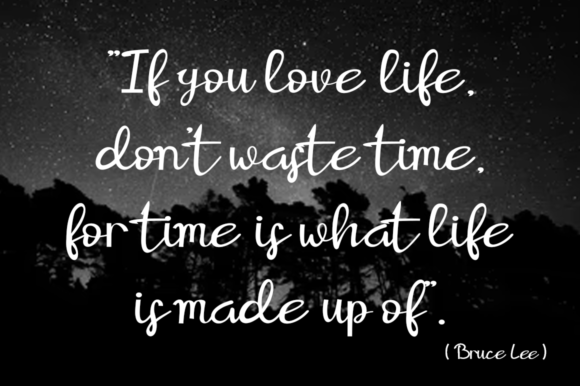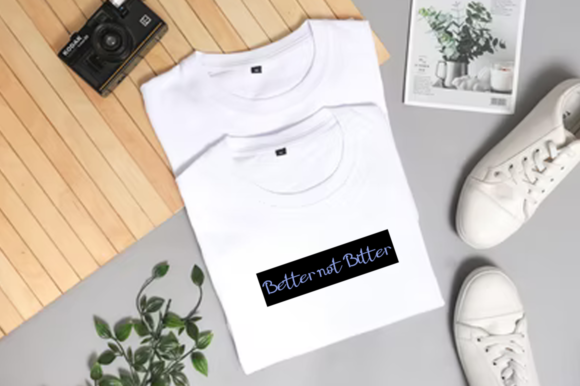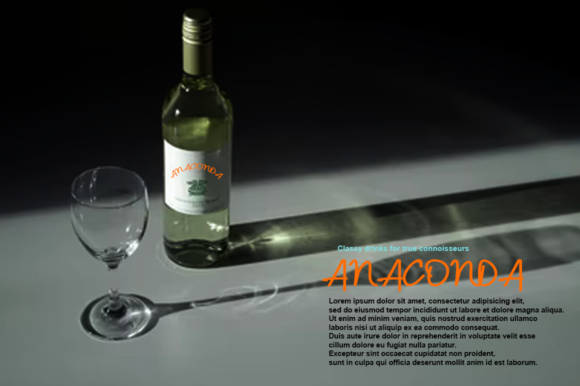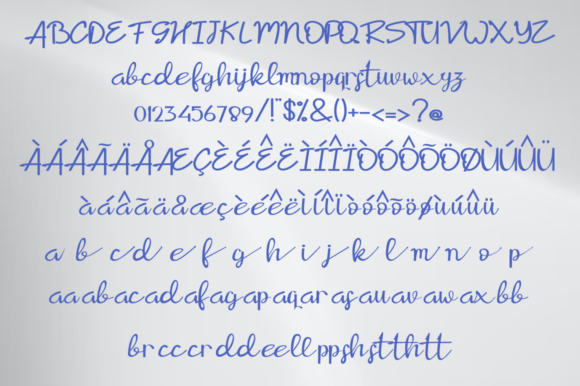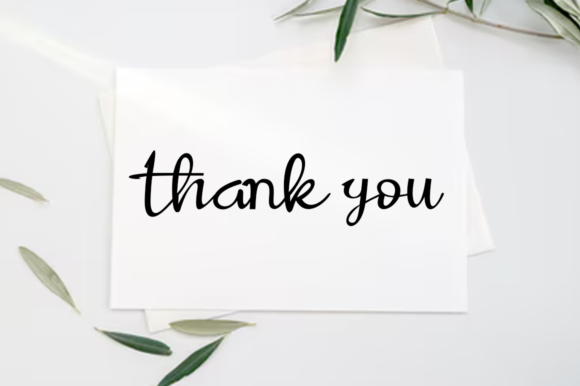
Introduction to Mondreng Font
Do you ever find yourself stuck in a creative rut, searching for the perfect design element to elevate your project? I know I do! It’s those moments when you stumble upon a game-changing resource that sparks a new wave of inspiration. For me, that moment came when I discovered the Mondreng Font – a modern and authentic handwritten font that’s perfect for adding a casual vibe with an elegant feel to any project.
As a designer, having access to high-quality design resources like the Mondreng Font can be a total game-changer. Not only does it save you time, but it also helps you achieve that professional, polished look you’re going for. And the best part? This font is PUA encoded, making it super easy to access all of the glyphs and swashes you need for your creative project.
Whether you’re working on a design project that requires a touch of sophistication or just want to add some personality to your branding, the Mondreng Font is an invaluable design resource. Plus, with a transparent background, you can easily incorporate it into any design without worrying about distractions. And the best part? You can download it for free!
- Unique, modern design with a touch of elegance
- Perfect for designers seeking a sophisticated, high-end look
Honest Review: Mondreng Font
I recently stumbled upon the Mondreng Font, a free design resource that caught my eye with its unique style and high quality aesthetic. As a designer, I appreciate the creativity that goes into crafting a font like this, making it an excellent addition to any creative project.
Here are some aspects of the Mondreng Font that I think work well:
- ✨ Unique style: The Mondreng Font boasts a distinctive look that sets it apart from other fonts in its category.
- ✨ High quality: The font’s design is well-executed, making it suitable for a wide range of applications.
- ✨ Transparent background: The font’s transparent background allows for seamless integration with various design elements.
- ⚠️ Limited character set: The font’s character set is not extensive, which may limit its use in certain contexts.
- ⚠️ Not ideal for small text: The font’s unique style may not be suitable for small text sizes, where readability becomes a concern.
Overall, I’m impressed with the Mondreng Font’s potential as a design resource. While it has its limitations, its unique style and high quality make it a valuable addition to any designer’s toolkit. Whether you’re working on a creative project or simply looking for a fresh font to experiment with, the Mondreng Font is definitely worth checking out.
Mondreng Font
To get the most out of the Mondreng Font, use it with a transparent background to create a clean and minimalist look. Experiment with different font sizes and colors to achieve the desired effect. You can also use it in combination with other design elements to create a unique and eye-catching design.
The Mondreng Font is ideal for creative projects such as logos, brochures, posters, and social media graphics. It’s also great for designing headings and titles for websites and presentations. With its high-quality design and transparent background, the Mondreng Font is a versatile resource for any design project.